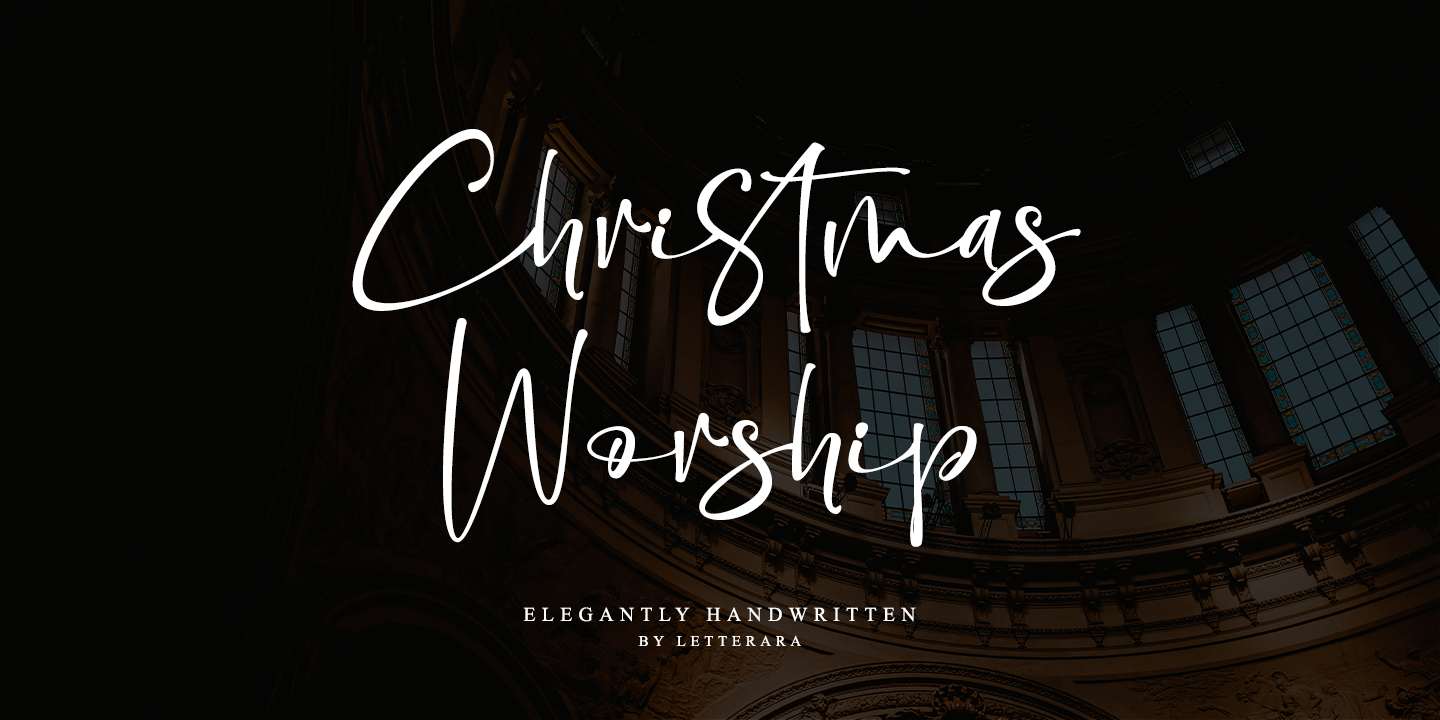
The Christmas Worship Font is incredibly versatile, making it an exquisite choice for a wide range of design projects that aim to evoke the serene, reverent, and joyful spirit of the holiday season. Imagine it gracing church bulletins and carol booklets, adding a peaceful and elegant touch to festive event invitations, or enhancing the visual appeal of holiday greeting cards with a spiritual message. It's also perfect for crafting unique banners for seasonal services, designing heartfelt social media graphics for faith-based organizations, or creating beautiful titles for Christmas concert programs. Its often graceful, dignified, and sometimes subtly decorative forms make it ideal for anything that needs to convey warmth, solemnity, and the profound beauty of Christmas.
What makes the Christmas Worship Font so exciting is its ability to instantly infuse any design with a sense of peace, reverence, and the timeless magic of the holiday. It's not just a typeface; it’s a visual hymn that brings a solemn yet joyous atmosphere to your message. Its elegant curves and often refined details stand out, offering a refreshing blend of traditional beauty and clear readability. In a world often dominated by commercial holiday aesthetics, this font offers a refreshing return to the deeper meaning of the season, making your content feel more sacred, inviting, and uniquely heartwarming.
The Christmas Worship Font family often includes various stylistic options to enhance its versatility for creative applications. While specific variations can differ, you can typically expect to find regular and possibly bold versions, often accompanied by elegant ligatures or subtle flourishes that enhance its dignified appeal. These features allow designers to create refined and meaningful typographic compositions, ensuring that each use of the font feels unique and artfully crafted, perfectly suited for conveying a message of faith and celebration during the Christmas season.